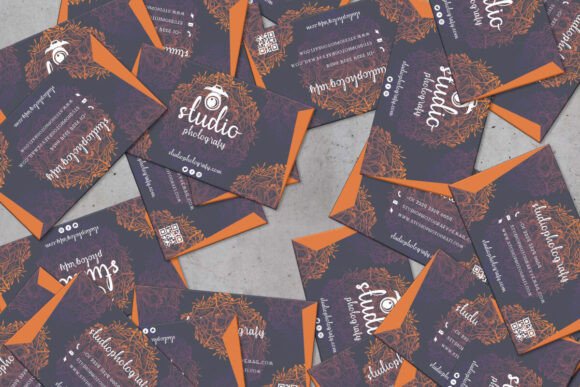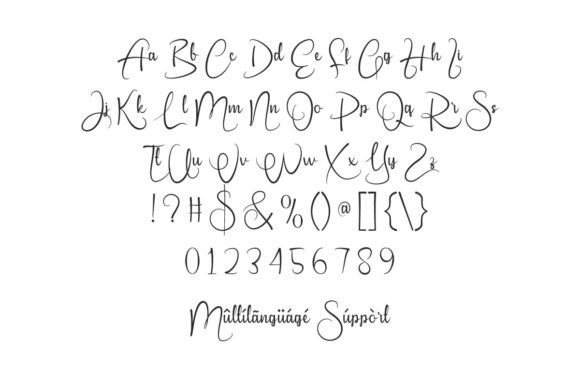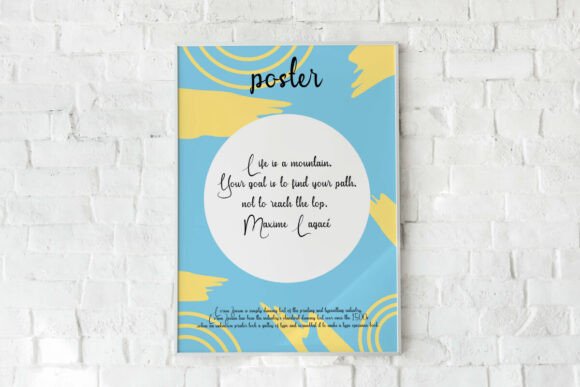
Berkleigh Font
Berkleigh Font is a beautiful cursive font with a handwritten style. It features smooth, flowing lines and adds a feminine touch to every design you create. This font is perfect for a variety of industries, including advertising, authors and writers, beauty products, event and wedding planning, fashion, florists, handicrafts, homeware, printing, publishing, spas and salons, and more!